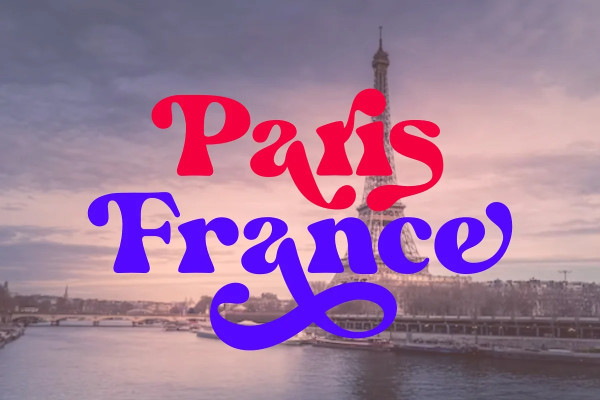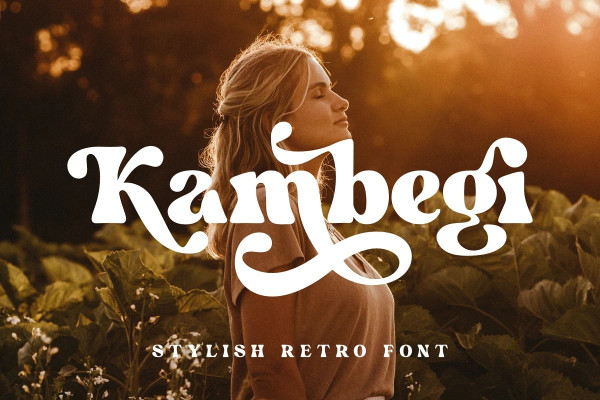
Kambegi Retro Font
Kambegi Retro Font, is a bold retro serif font with a casual feel and a clean, great modern retro aesthetic. Use this Kambegi serif font to add a special retro modern touch to any design idea you can think of. This font is perfectly made to be applied especially to logos, and many other formal shapes such as invitations, labels, logos, magazines, books, greeting / wedding cards, packaging, fashion, make up, stationery, novels, labels or any type.